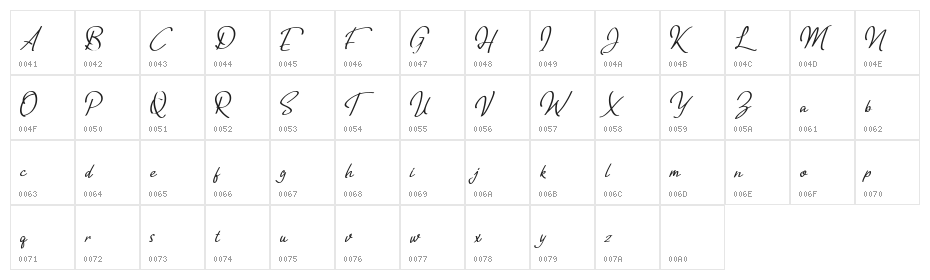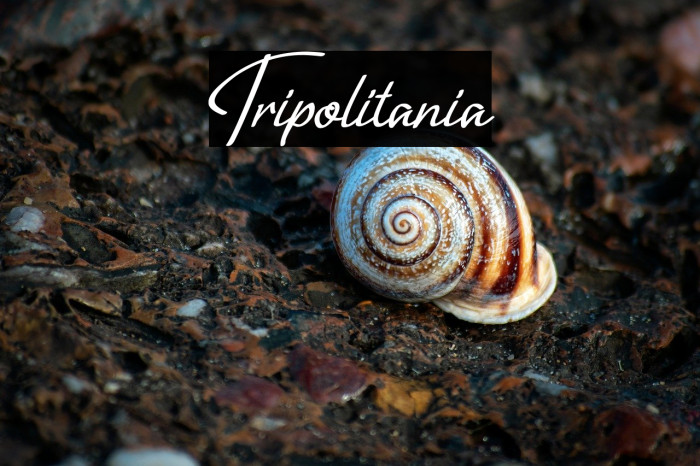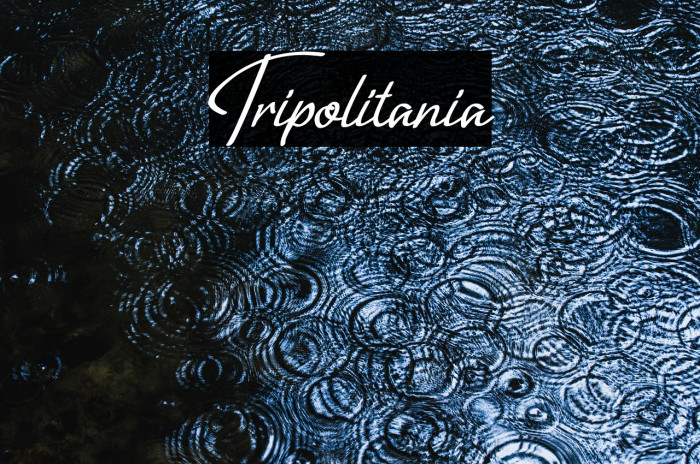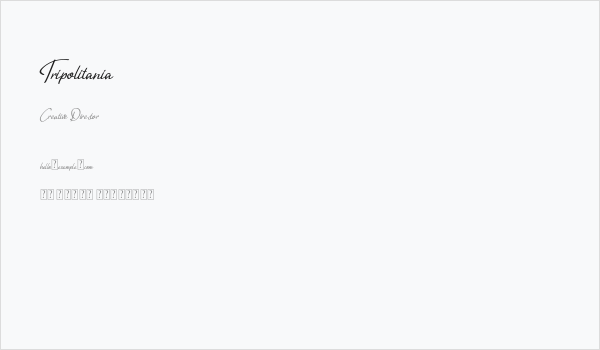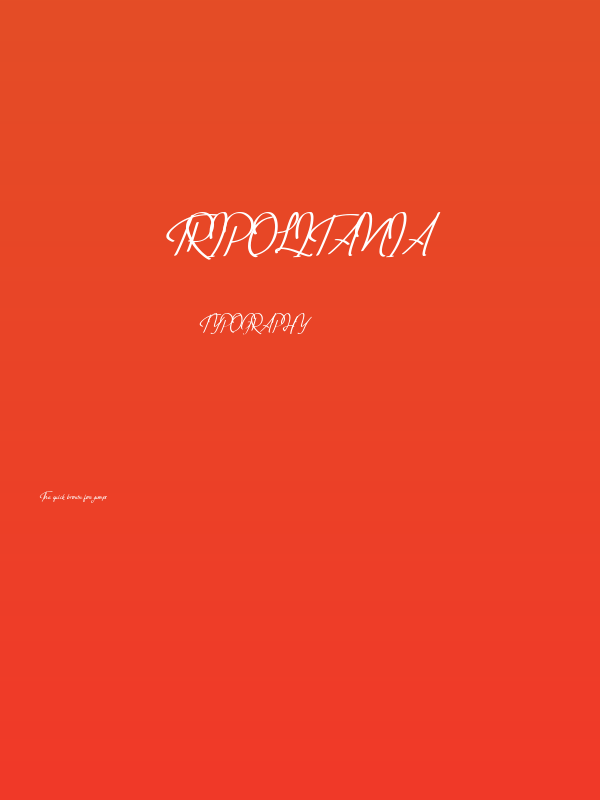
Tripolitania Font
Tripolitania Description
This elegant script font features a flowing, cursive style with intricate loops and swashes that give it a sophisticated and artistic appearance. The uppercase letters are particularly ornate, with exaggerated flourishes that add a sense of drama and elegance. The lowercase letters maintain a consistent style, with smooth, connected strokes that enhance readability while preserving the decorative nature of the font. The numbers and special characters are designed to match the overall aesthetic, ensuring a cohesive look across all text elements. This font's high contrast between thick and thin strokes adds to its visual appeal, making it suitable for a variety of creative applications.
| Proposed Projects | Ideal for wedding invitations, elegant branding, greeting cards, and artistic posters. |